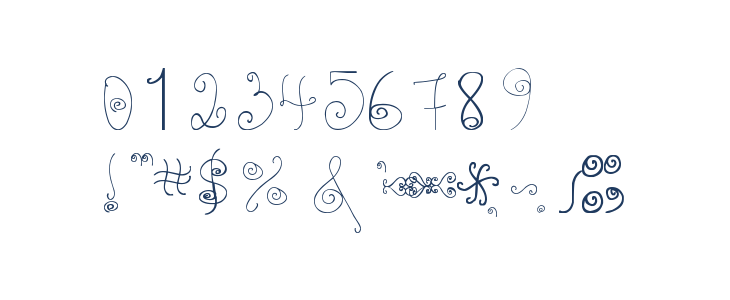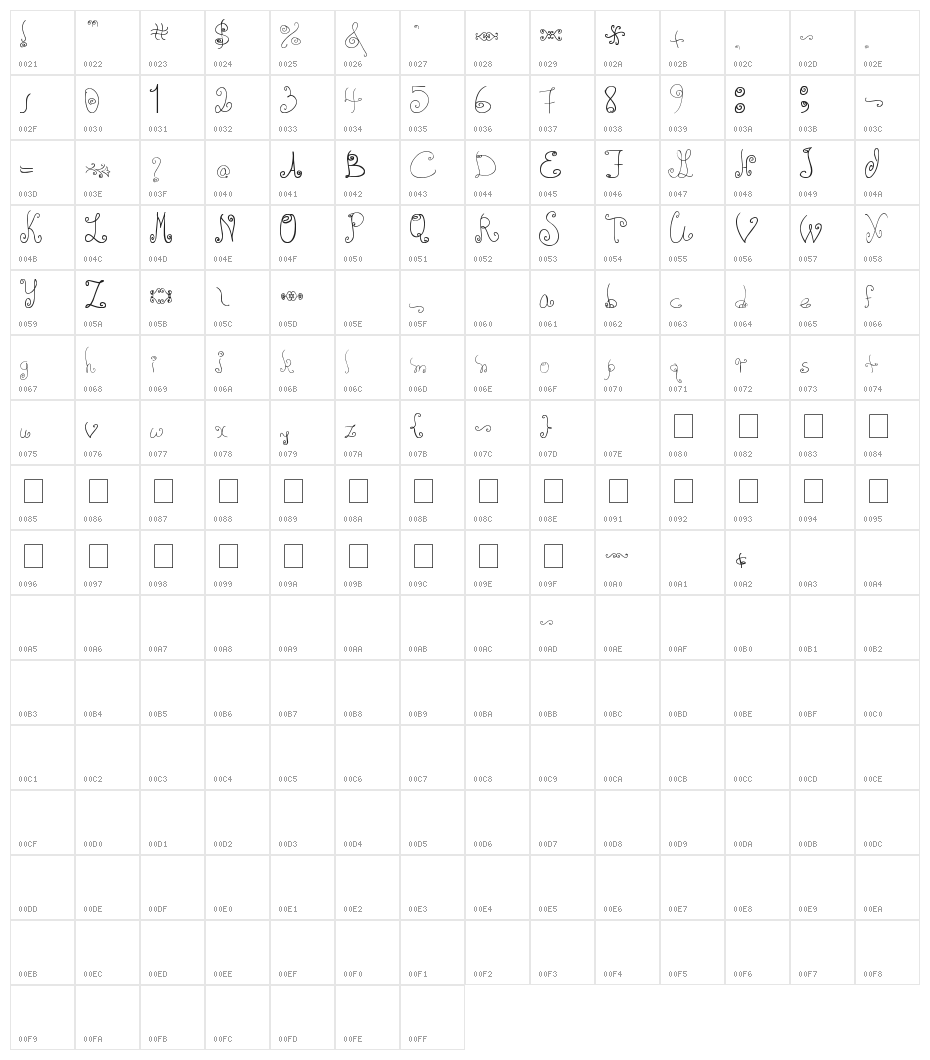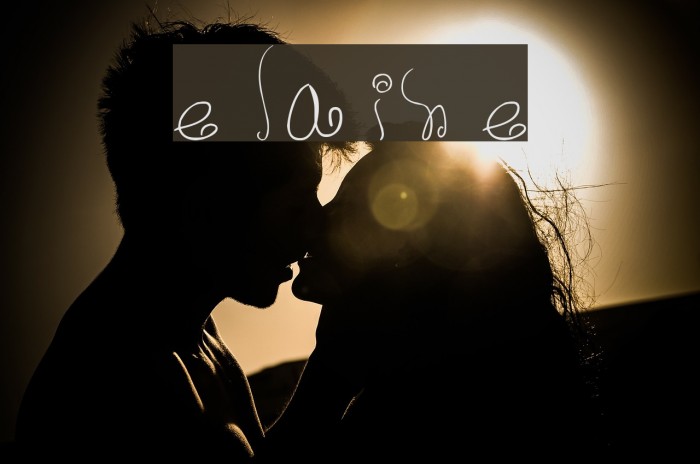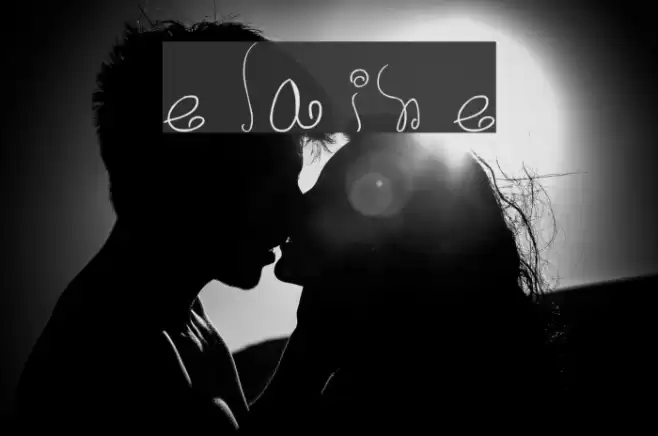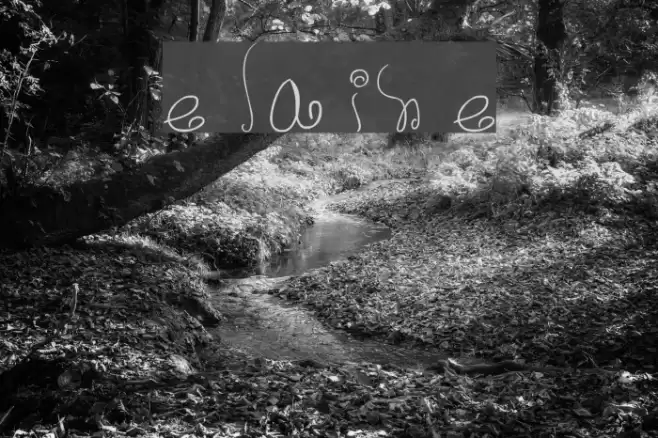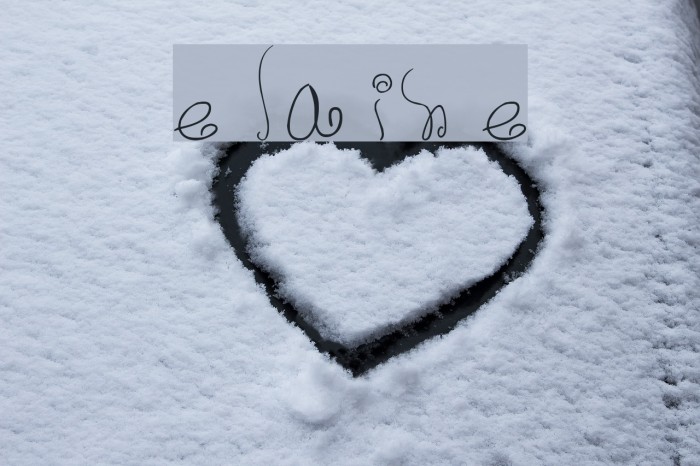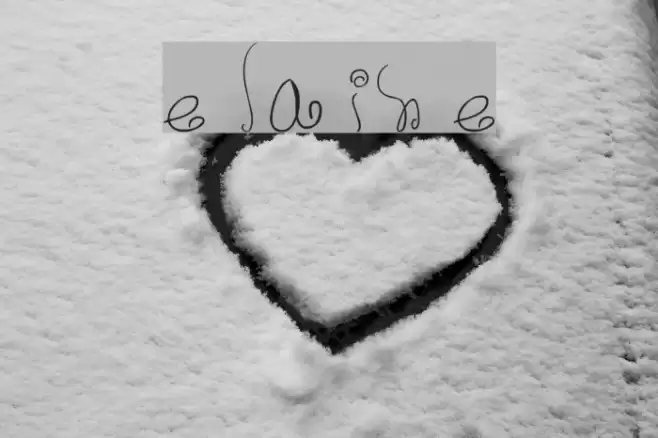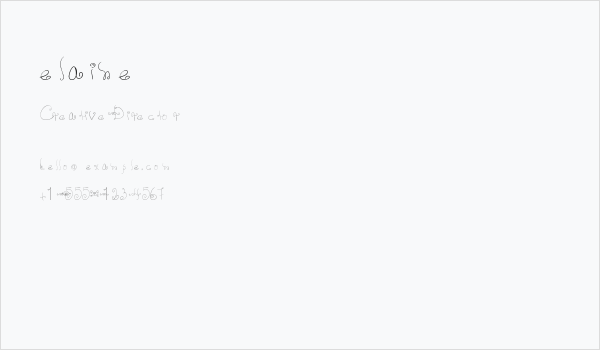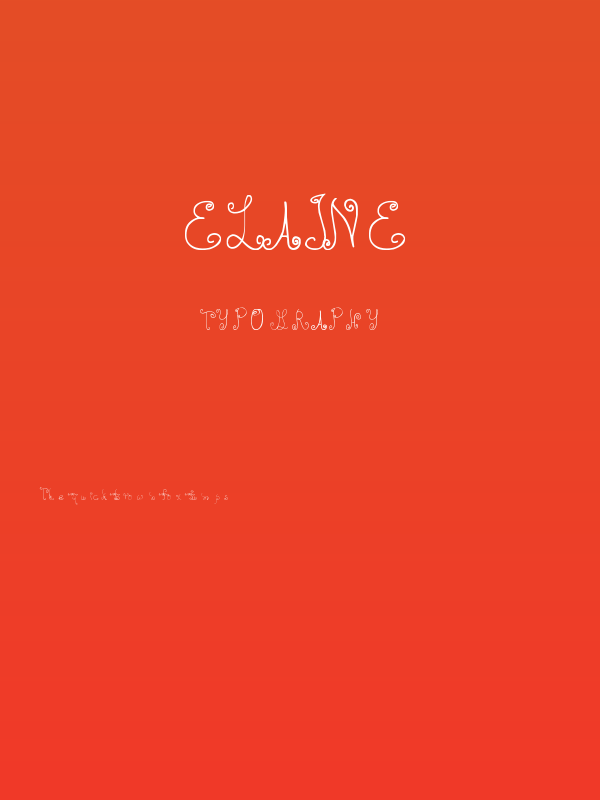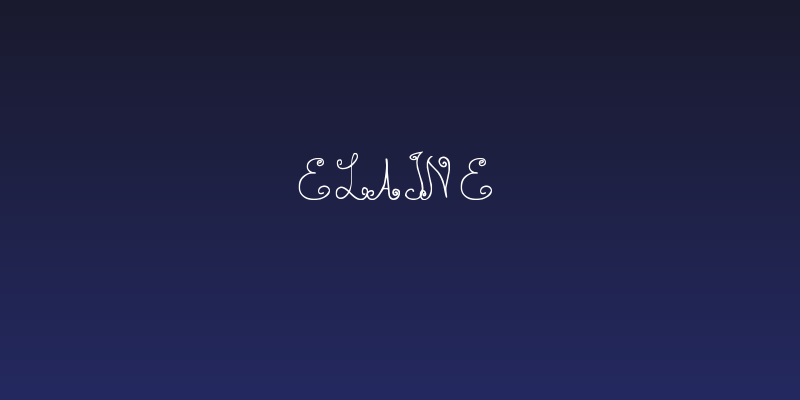
elaine Font
elaine Description
This font features an intricate and whimsical design with elaborate swirls and curls adorning each character. The uppercase letters are particularly ornate, with each letter incorporating unique decorative elements that give it a playful and artistic flair. The lowercase letters maintain a similar style, though they are slightly more subdued in their embellishments. The numerals are equally creative, with some numbers featuring spiral motifs that add to the overall fanciful aesthetic. Special characters continue this theme, with each symbol crafted to match the font's distinctive style. This font is perfect for projects that require a touch of elegance and creativity, making it ideal for invitations, greeting cards, and artistic branding.